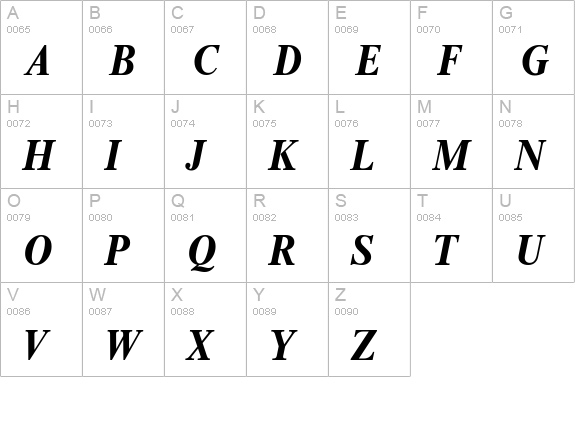
ThamesSerial-BoldItalic is a modern and sleek font that exudes confidence and sophistication. With its bold yet elegant italic styling, this typeface is perfect for adding a touch of flair to any design project. Whether used for headlines, logos, or branding materials, ThamesSerial-BoldItalic commands attention and makes a statement. The free download of ThamesSerial-BoldItalic font is available exclusively at FontsMarket.com. This versatile typeface offers a unique blend of boldness and finesse, making it a standout choice for designers looking to make a bold impression. Download ThamesSerial-BoldItalic today and elevate your designs with this eye-catching font.